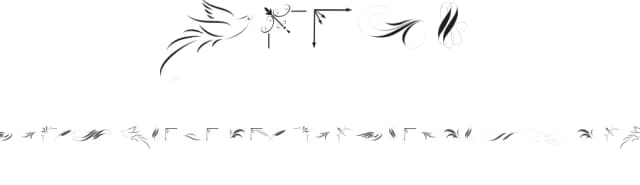
About Blustina Font
Romie Creative
Blustina Specifications
| Font Family | Blustina Extras |
| Full Name | BlustinaExtras |
| PostScript Name | BlustinaExtras |
| Designer | Romi Rahmadi |
Blustina supports 89 languages.
Blustina Font is a script font that shines as a display or heading face. Pair it with a clean sans-serif or serif font for body text β the contrast creates a clear hierarchy while the two styles stay balanced and easy to read.
Blustina Font
by Romi Rahmadi